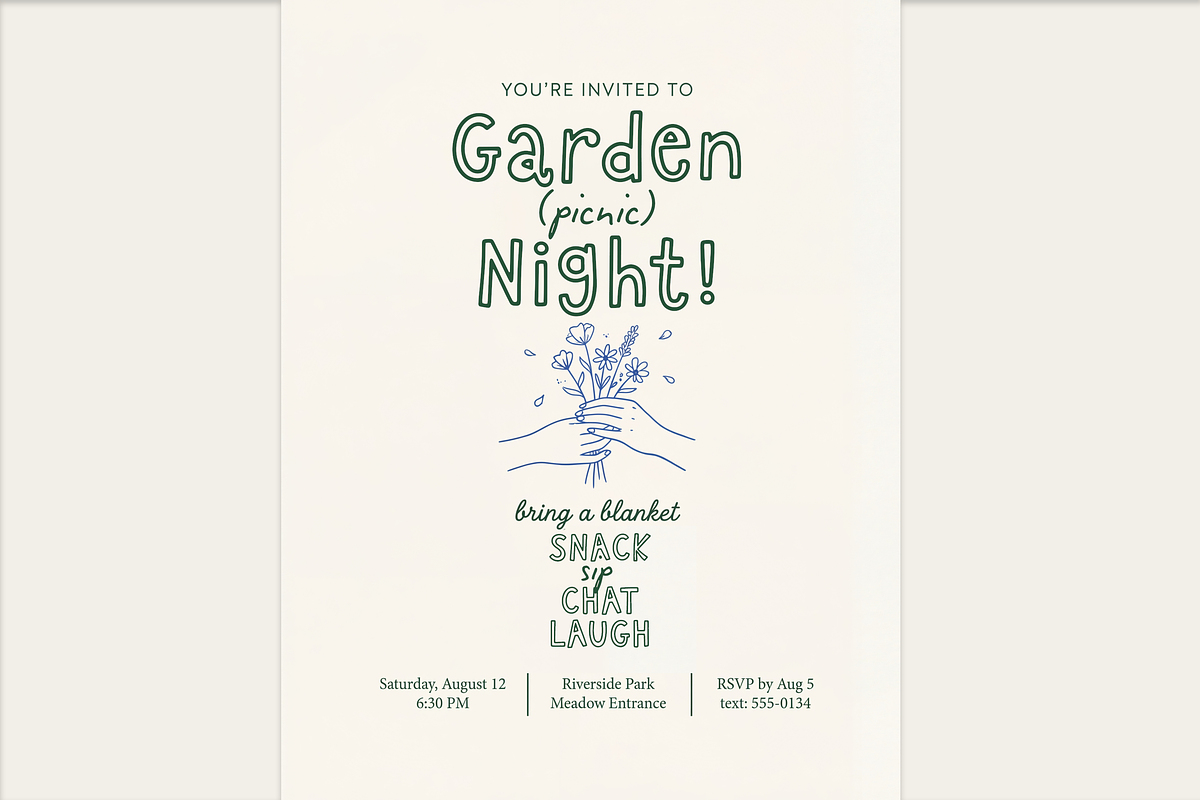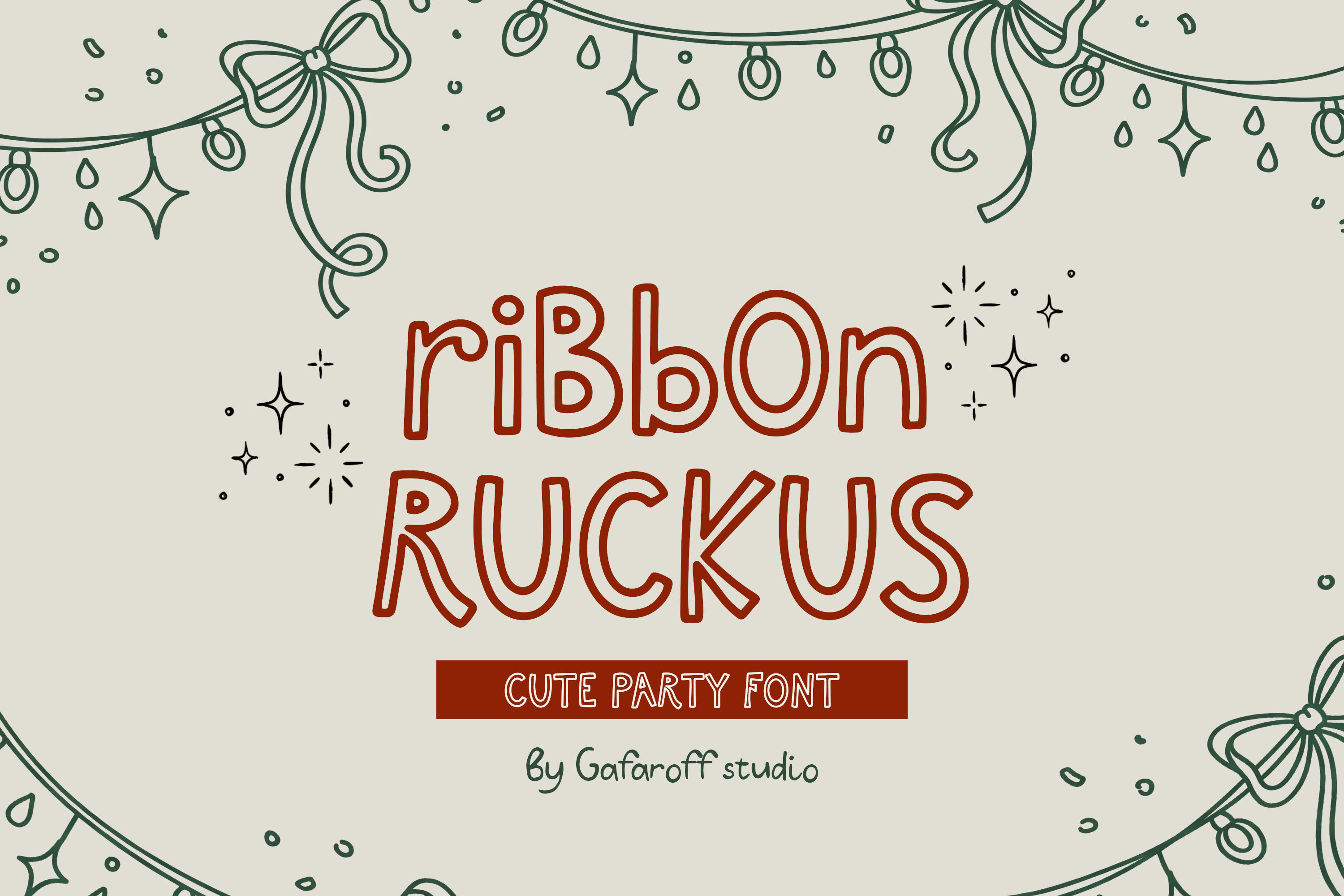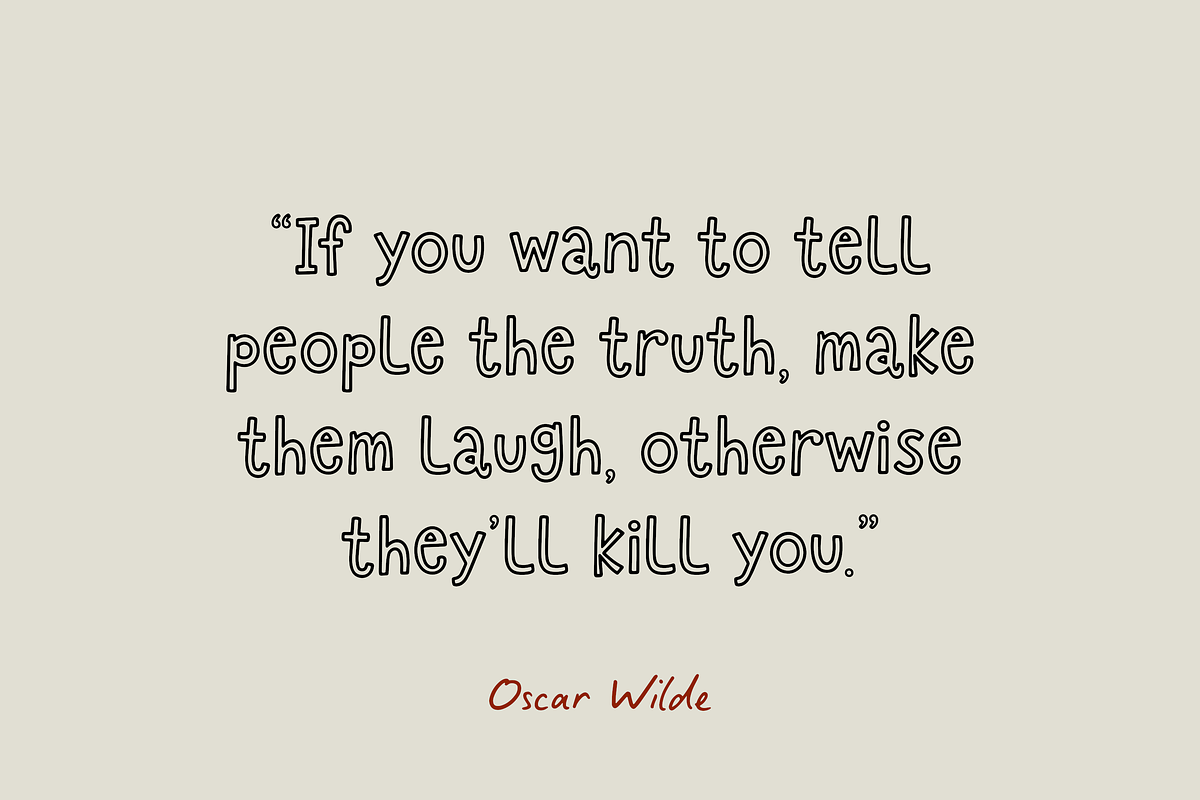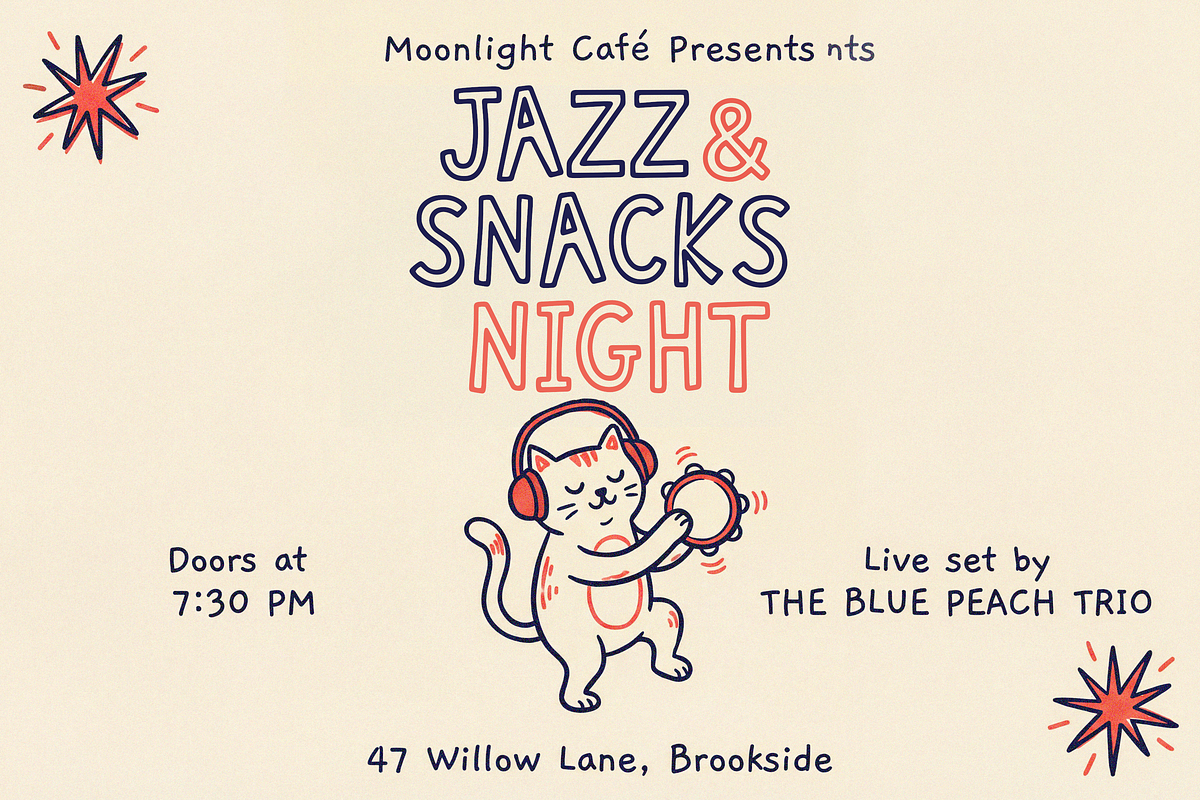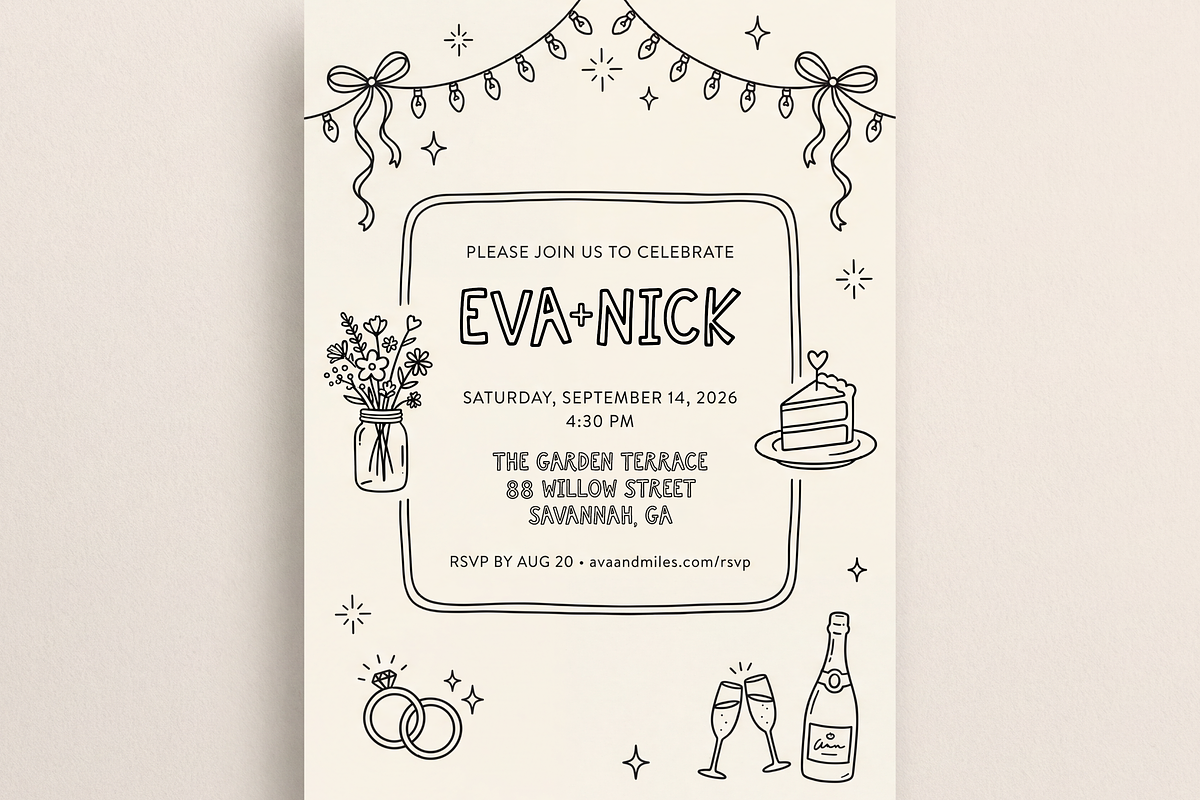
Ribbon Ruckus Party Font
Ribbon Ruckus is a cute, hand-drawn double-outline font with a playful, slightly wonky marker vibe. Rounded letterforms, bouncy personality, and clean outline-only strokes make it perfect for invitations and cheerful headline designs.
Great for birthdays, parties, baby showers, stickers, greeting cards, posters, classroom prints, and fun branding.
Includes uppercase, lowercase, numerals, punctuation, and a wide range of symbols for versatile use.